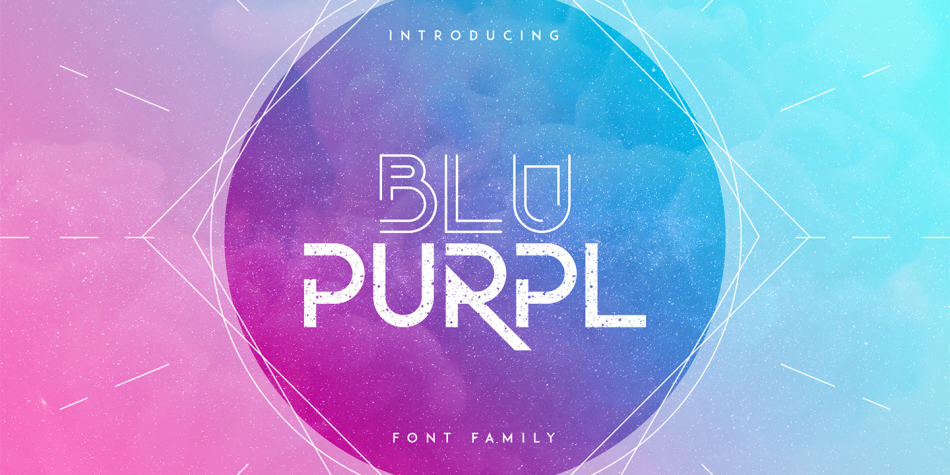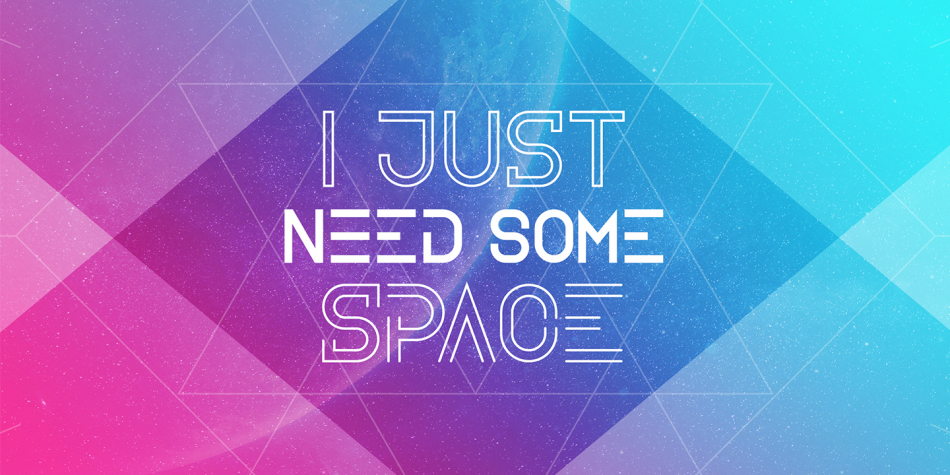
| BluPurpl is a display sans font family. This typeface has four styles and was published by Vladfedotovv. |
BluPurpl font family
BluPurpl is bold, futuristic sans serif typeface with 4 fonts. multilingual support and extras. It’s a very versatile font that works great in large and small sizes.
BluPurpl is perfect for branding projects, home-ware designs, product packaging, magazine headers - or simply as a stylish text overlay to any background image.